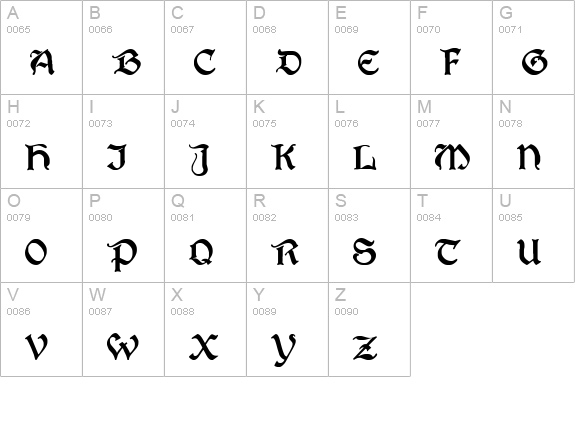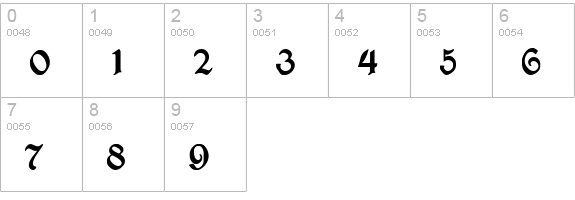
Augusta Regular Font Details
Augusta Regular is the standard, neutral variant in the Augusta typeface family \xE2\x80\x94 well suited to general body text, paragraphs, and standard typographic work.